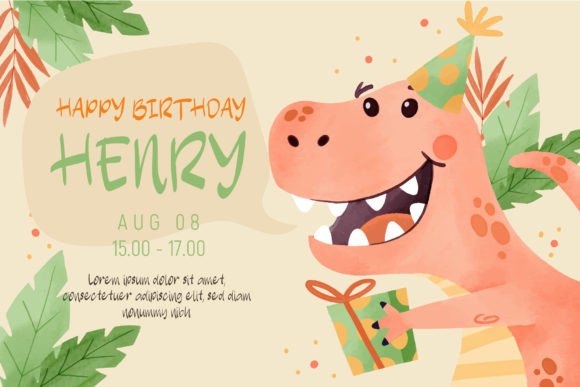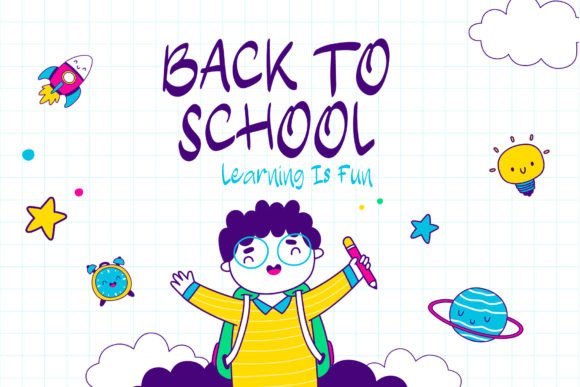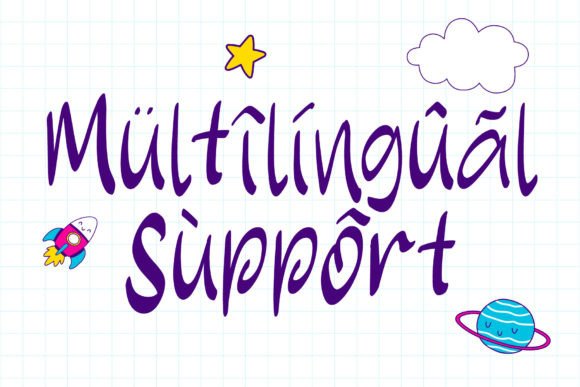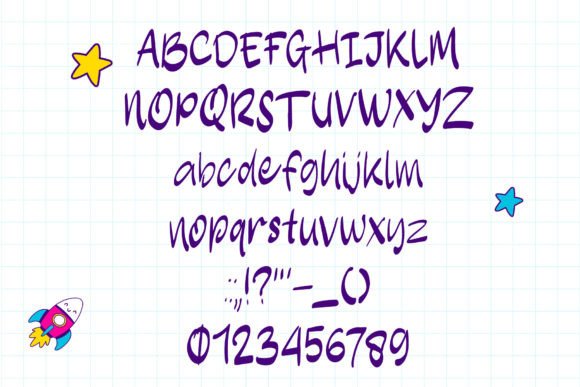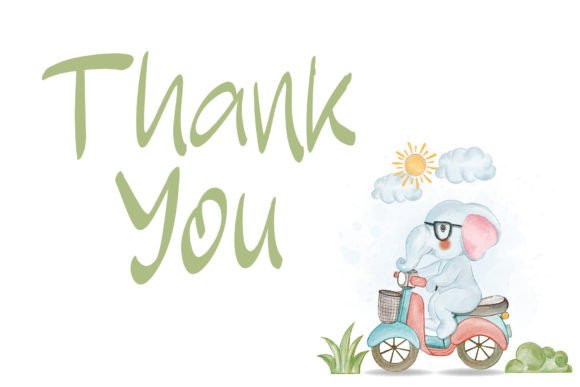
Silent Star Font
About Silent Star Font
Silent Star is a fun and playful handwritten font. Whimsical and a little bit quirky, this font will brighten up each of your designs.